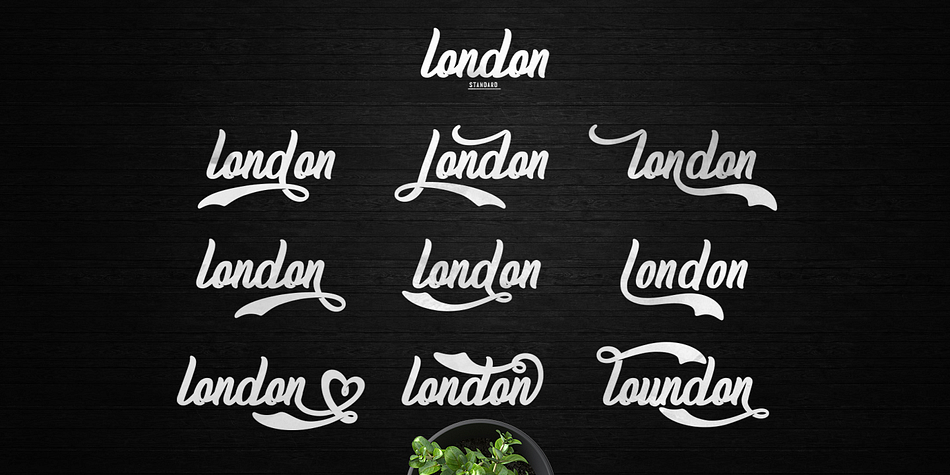
Homerun Typeface
Designed by Suandana Ipandemade, Homerun Typeface is a script font family. This typeface has six styles and was published by madeDeduk.
Homerun Script is a font family with three alternate versions: Regular, Stamp and Gradient. The fonts are also available in two different weights: Regular and Bold. A bonus Vector pack is also available.
Homerun Script is perfect for poster design, book covers, merchandise, fashion campaigns, newsletters, branding, advertising, magazines, greeting cards, album covers, and quote designs and more.
Features of this family:
- Uppercase
- Lowercase
- Numbers & symbols
- International glyphs
- Alternate uppercase
- Alternate lowercase
- Ligatures
- Swashes
Designer Suandana Ipandemade